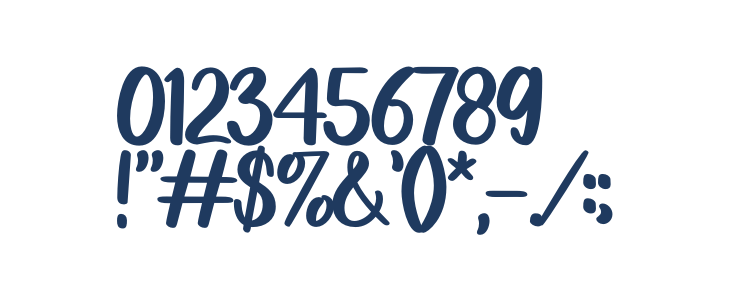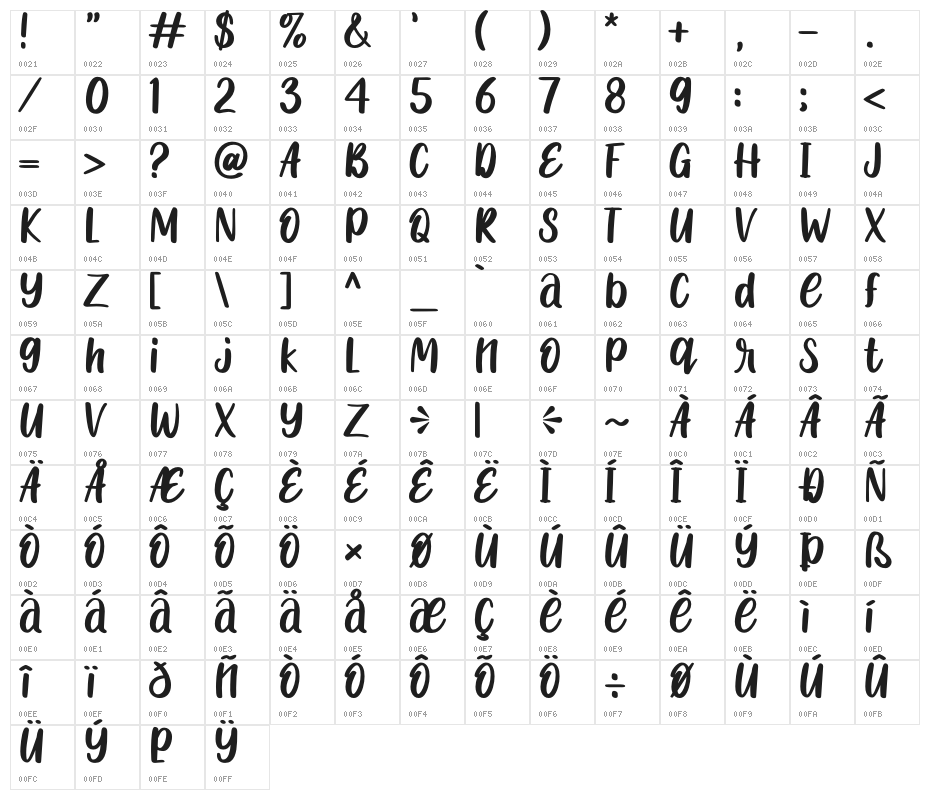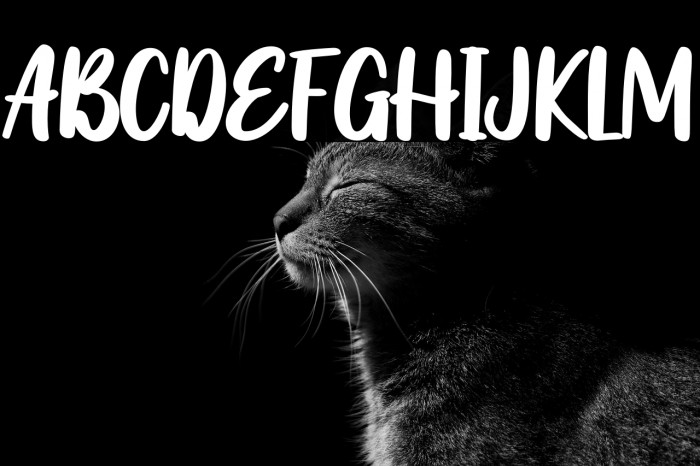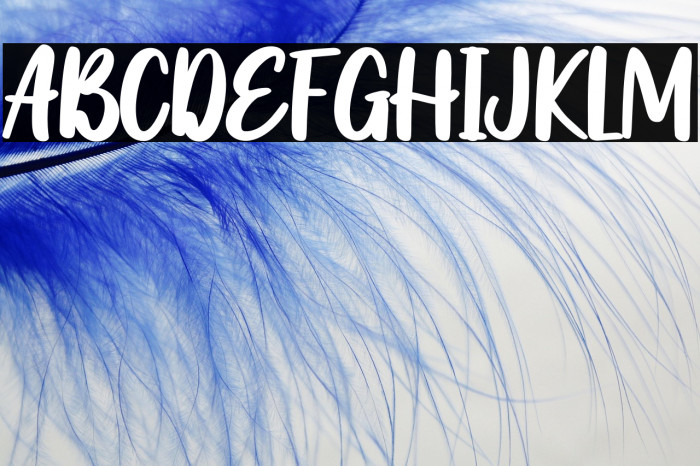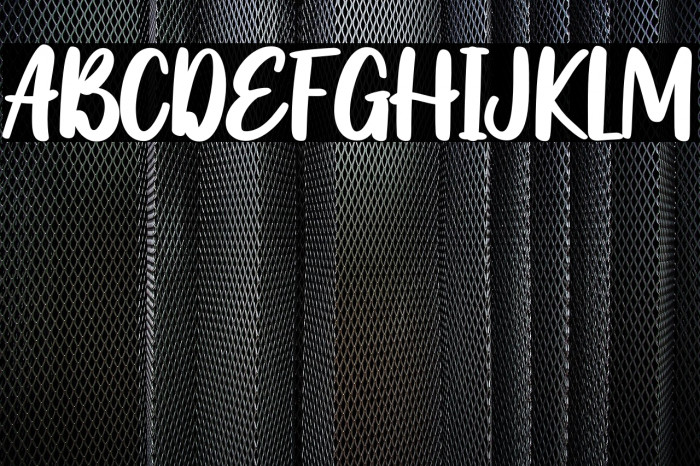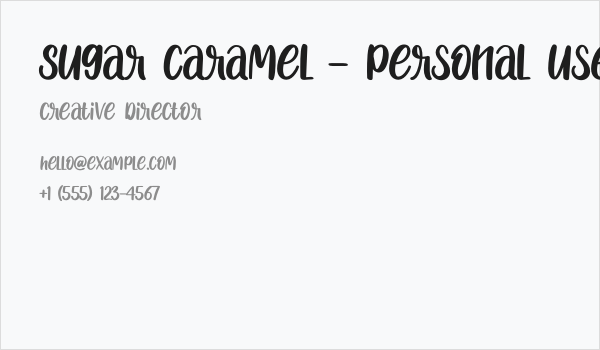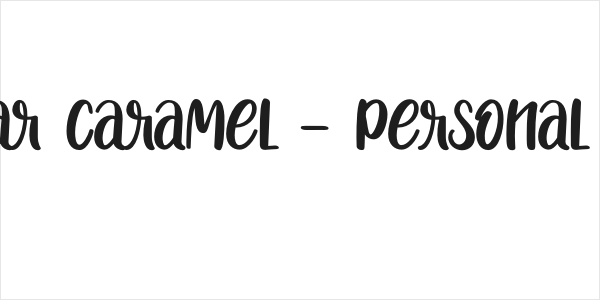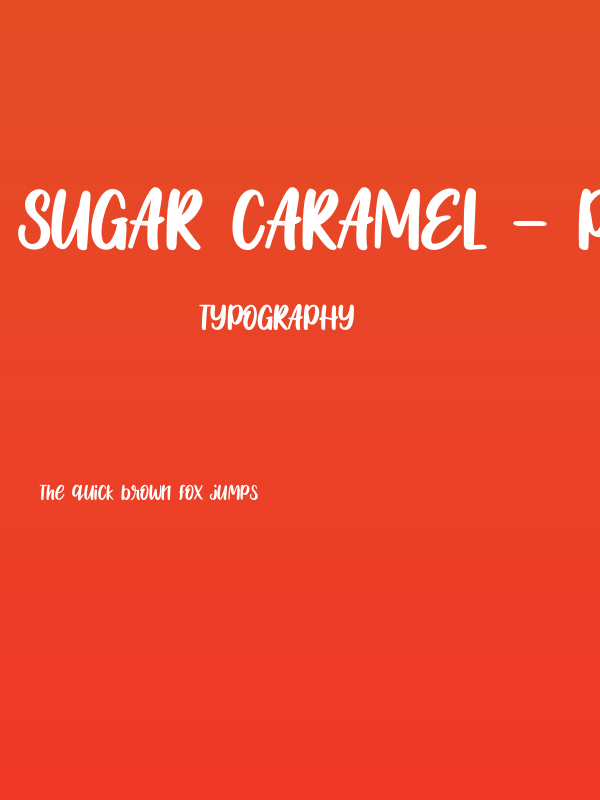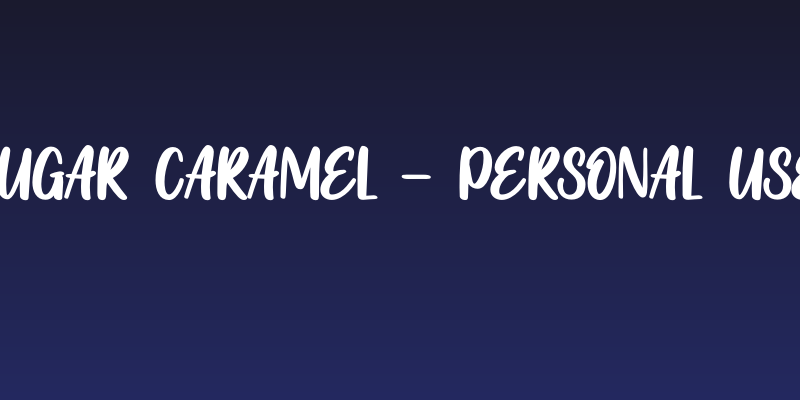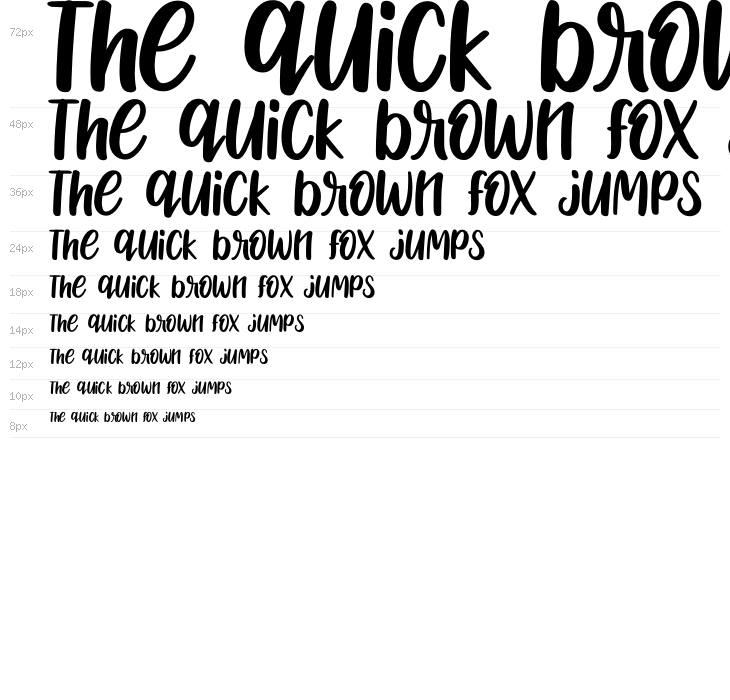
Sugar Caramel - Personal Use Font
Sugar Caramel - Personal Use Description
This font features a playful and bold handwritten style, characterized by its thick, rounded strokes and a slightly slanted orientation. The letters are closely spaced, giving it a compact and energetic appearance. The uppercase and lowercase letters maintain a consistent flow, with some letters exhibiting unique flourishes that add to its charm. The numbers and special characters are designed to match the lively and informal aesthetic, making it suitable for projects that require a personal and friendly touch.
Overall StylePlayful
Proposed ProjectsIdeal for greeting cards, children's book covers, playful branding, and social media graphics.